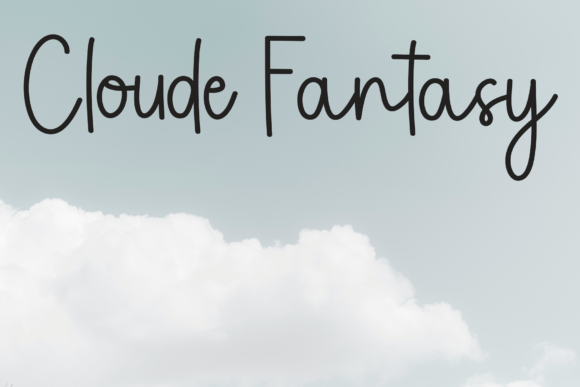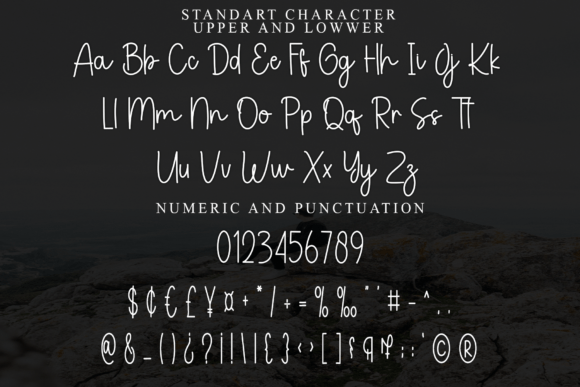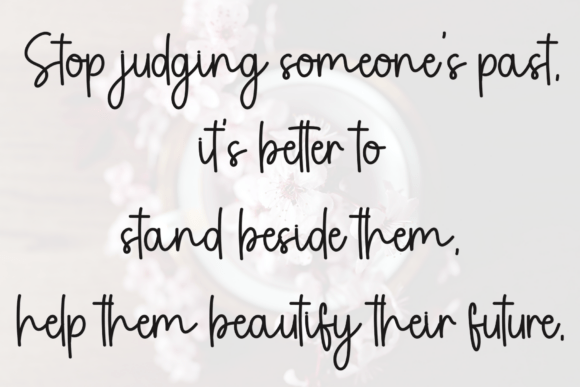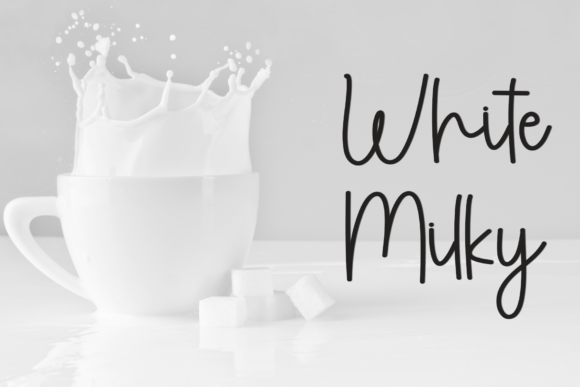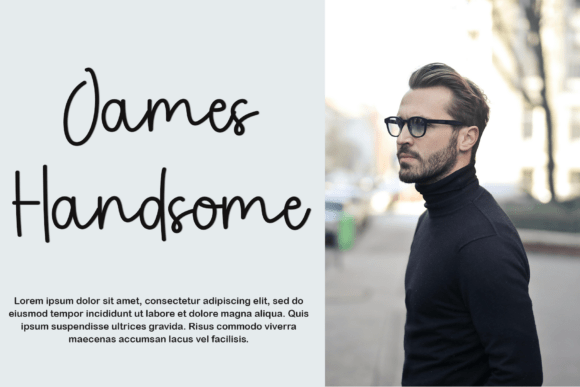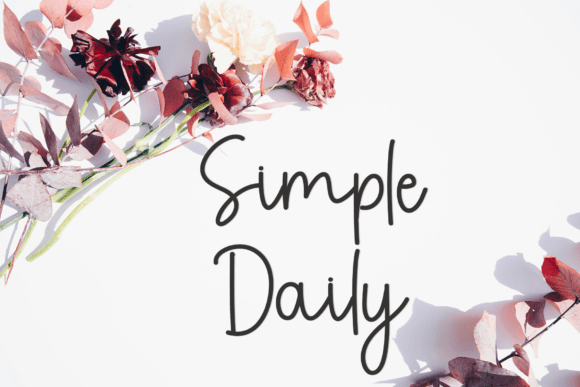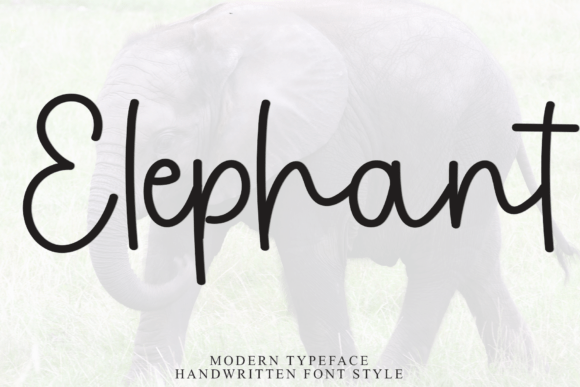
Introducing Elephant Font: The Perfect Handwritten Touch for Your Designs
Are you tired of using generic fonts that lack personality in your designs? Look no further than Elephant Font, a simple and neat handwritten font that feels personal and easy to read. With its smooth lines and natural flow, Elephant Font is perfect for adding a touch of warmth and coziness to your notes, quotes, journals, logos, and casual designs.
The Characteristics of Elephant Font
Elephant Font is a beautifully crafted handwritten font that boasts a range of characteristics that make it perfect for a variety of design applications. Some of its key features include:
- Smooth Lines: Elephant Font features smooth, flowing lines that give it a natural and effortless feel.
- Natural Flow: The font’s natural flow makes it easy to read and understand, even at smaller sizes.
- Personal Touch: Elephant Font has a distinctly personal feel that makes it perfect for designs that require a human touch.
- Minimalist Aesthetic: Despite its personal feel, Elephant Font is surprisingly minimalist, making it perfect for designs that require a clean and simple aesthetic.
Use Cases for Elephant Font
Elephant Font is a versatile font that can be used in a wide range of design applications. Here are some of the most popular use cases for this beautiful font:
- Notes and Journals: Elephant Font is perfect for notes and journals, adding a personal touch to your writing.
- Quotes and Inspirational Messages: The font’s smooth lines and natural flow make it perfect for quotes and inspirational messages.
- Logos and Branding: Elephant Font can be used to create beautiful logos and branding materials that require a personal touch.
- Casual Designs: The font’s minimalist aesthetic makes it perfect for casual designs, such as flyers, brochures, and posters.
Why Choose Elephant Font?
There are many reasons why designers and crafters should choose Elephant Font for their next project. Here are just a few:
- Easy to Read: Elephant Font is incredibly easy to read, even at smaller sizes.
- Versatile: The font can be used in a wide range of design applications, from notes and journals to logos and branding materials.
- Personal Touch: Elephant Font adds a personal touch to your designs, making them feel more human and approachable.
- Minimalist Aesthetic: The font’s minimalist aesthetic makes it perfect for designs that require a clean and simple look.
Tips for Using Elephant Font
Here are a few tips for getting the most out of Elephant Font:
- Use it for Body Text: Elephant Font is perfect for body text, adding a personal touch to your writing.
- Pair it with Bold Fonts: Pair Elephant Font with bold fonts to create visual interest and contrast.
- Experiment with Colors: Elephant Font looks great in a range of colors, from bright and bold to muted and pastel.
- Use it for Headings: The font’s smooth lines and natural flow make it perfect for headings and titles.
Elephant Font is a beautiful handwritten font that feels personal and easy to read. With its smooth lines and natural flow, it’s perfect for adding a touch of warmth and coziness to your designs. Whether you’re a designer or crafter, Elephant Font is a versatile font that can be used in a wide range of applications. So why not give it a try and see how it can elevate your designs?